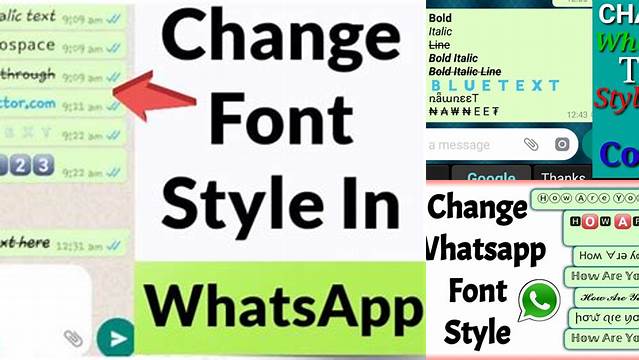
WhatsApp Fonts: Change Your Text Style
The Magic of Customizing WhatsApp Fonts
Hey guys, ever felt like your WhatsApp chats were a bit⊠well, boring? We all use WhatsApp daily, right? Itâs our go-to for keeping up with friends, family, and even work. But letâs be real, the standard font can get pretty monotonous. Thatâs where the amazing world of WhatsApp fonts comes in! Imagine spicing up your messages with bold declarations, italicized whispers, or even striking through those awkward moments. Itâs not just about looking cool, though thatâs a definite perk. Customizing your WhatsApp fonts is a super fun way to express yourself, add personality to your conversations, and make your texts stand out from the crowd. Think about it: you can use bold to emphasize something really important, italics to convey a sarcastic tone, or even strikethrough to show youâve changed your mind. These little tweaks can totally change how your message is perceived, making your chats more engaging and expressive. Plus, itâs a fantastic way to personalize your digital communication and let your unique style shine through. So, if youâre ready to ditch the default and inject some serious flair into your WhatsApp game, stick around, because weâre about to dive deep into everything you need to know about mastering those awesome WhatsApp fonts!
Understanding WhatsApp's Built-in Font Features
So, WhatsApp, bless its heart, does offer a few built-in ways to play with your text. Itâs not a full-blown font customization suite like youâd find on a desktop publishing program, but itâs pretty neat for what it is. Most of us know the basics, right? To make your text bold in WhatsApp, you simply wrap the word or phrase you want to emphasize with an asterisk (*). So, if you type This is important, itâll show up as This is important in the chat. Itâs super straightforward and instantly adds emphasis, making your key points pop. Then there are italics. Need to convey a subtle tone, a foreign word, or perhaps a bit of sarcasm? Just use the underscore (_). Typing This is interesting will transform into This is interesting. Itâs perfect for adding nuance to your messages. And letâs not forget the strikethrough option, which is great for showing youâve changed your mind or for a bit of playful editing. To achieve this, you use the tilde (~). So, This was a mistake becomes This was a mistake, visually crossing out the text. These basic formatting tools are incredibly powerful for adding layers of meaning and personality to your messages. Theyâre readily available, require no extra apps, and are universally understood by all WhatsApp users. Mastering these simple tricks is the first step to making your WhatsApp conversations more dynamic and visually appealing. Itâs all about using these little symbols to communicate more effectively and expressively. So, before you go hunting for fancy external tools, make sure youâre utilizing these native WhatsApp font features to their full potential. Theyâre the foundation for a more engaging chat experience, guys!
Exploring Third-Party Apps for WhatsApp Font Styles
Now, while WhatsAppâs built-in features are handy, sometimes you want more. You want those fancy scripts, those cool cursive styles, or maybe even something a bit gothic. Thatâs where third-party apps come into the picture, and trust me, they are a game-changer for exploring a wider range of WhatsApp fonts. These apps essentially work by generating your text in different fonts, which you can then copy and paste directly into your WhatsApp chats. Itâs like having a personal font studio right on your phone! Think about the possibilities: you can send stylish birthday wishes in a flowing script font, add a touch of elegance with a serif font, or even use a retro font for a fun throwback. These apps usually have a massive library of fonts, catering to every mood and occasion. Some popular options you might find include stylish text generators, font keyboards, and even specialized apps focused solely on creating cool text for social media and messaging. When you use these, youâll typically type your message into the app, select your desired font from a long list, and then hit a copy button. Then, you just head over to WhatsApp, paste it into the chat, and voilĂ ! Your message looks completely different and way more interesting. Itâs crucial, however, to be a bit savvy when choosing these apps. Look for ones with good reviews, clear privacy policies, and that donât bombard you with excessive ads or require unnecessary permissions. Safety first, always! But yeah, for unlocking a universe of creative text styles beyond the basic bold and italics, these third-party apps are your best bet for seriously upgrading your WhatsApp font game. Get ready to impress your friends with messages that look like theyâre straight out of a designerâs sketchbook!
How to Use Fancy Text Generators for WhatsApp
Letâs talk about the nitty-gritty of using those cool fancy text generator apps for your WhatsApp fonts, shall we? Itâs honestly super simple, guys, and the results can be surprisingly impactful. The basic process is pretty much universal across most of these tools. First off, youâll need to download and install one of these apps from your deviceâs app store. There are tons of them out there, so a quick search for âfancy text generatorâ or âWhatsApp font generatorâ should give you plenty of options. Once youâve got one installed, open it up. Youâll usually see a prominent text box where you can type your message. So, go ahead and type exactly what you want to send on WhatsApp into this box. As you type, the app will dynamically generate your text in a variety of different font styles below or beside your input. Youâll see everything from elegant cursive fonts and bold block letters to quirky, decorative styles. Scroll through the options and find the one that best fits the vibe of your message. Found the perfect font? Awesome! Now, most apps have a simple âcopyâ button right next to each generated text style. Tap that button, and the stylized text is copied to your phoneâs clipboard. The next step is the most exciting: open your WhatsApp chat. Navigate to the message input field, and simply paste the copied text. You can usually do this by long-pressing in the input field and selecting âpasteâ from the menu that pops up. And there you have it! Your message, now transformed into a fancy font, is ready to be sent. Itâs a fantastic way to make announcements, send special greetings, or just add a touch of personality to your everyday chats. Remember to choose fonts that are readable, though â sometimes the super fancy ones can be a bit of a strain on the eyes, especially on a small screen. But generally, these generators are a super accessible and fun way to elevate your WhatsApp communication. Go on, give it a whirl and see how your friends react!
Creating Stylish Text with Keyboard Font Apps
Beyond dedicated generators, another super popular way to get awesome WhatsApp fonts is by using custom keyboard apps. These guys essentially replace your default phone keyboard with one that has built-in font styling capabilities. Itâs a really seamless way to integrate fancy text into your typing workflow, making it feel almost like a native feature. Once youâve downloaded and installed a keyboard app that offers font styles (again, a search in your app store will reveal many), youâll need to enable it in your phoneâs settings. This usually involves going to Settings > Keyboard (or similar), then adding the new keyboard and potentially allowing full access if prompted (do this only for trusted apps, of course!). After enabling, you can switch to your new keyboard anytime youâre typing, usually by tapping a globe icon or a specific key on the keyboard itself. Many of these keyboards will have a dedicated section or a toggle button where you can select different font styles before you even send your message. So, as youâre typing your message on the keyboard, you can simultaneously be applying a cool font. Some keyboards even offer a âfont barâ that appears above the keys, allowing you to cycle through styles easily. This is super convenient because you donât need to switch between apps; itâs all happening right there as you type. Imagine typing a whole paragraph in a stylish font without ever leaving the chat window! It makes the process much faster and more fluid than copy-pasting. Just like with generators, explore the different font options provided by the keyboard app. Youâll find everything from elegant scripts to bold sans-serifs. Make sure the keyboard you choose is reliable and doesnât slow down your typing. Read reviews and check permissions carefully. But overall, keyboard font apps are a fantastic tool for anyone who wants to consistently use stylish WhatsApp fonts without the extra hassle of copy-pasting. Itâs all about making your typing experience cooler and more expressive, guys!
WhatsApp Font Changer: What You Need to Know
Okay, so youâve probably heard the term âWhatsApp Font Changer,â and it sounds like a magical button that instantly transforms all your WhatsApp text, right? Well, not quite. While there isnât a single, official âWhatsApp Font Changerâ app that modifies the appâs core font for all your chats universally, the term usually refers to the methods weâve been discussing: using WhatsAppâs built-in formatting, third-party text generators, or custom keyboard apps. Itâs important to understand this distinction because sometimes people search for a âfont changerâ expecting a system-wide modification within WhatsApp itself, which isnât how it works. The built-in bold, italics, and strikethrough are applied per message. The text generators and keyboard apps create new text strings in different fonts that you then paste or type into WhatsApp. These generated fonts arenât technically changing WhatsAppâs default font; theyâre essentially sending a message that displays in a different font style. This means the recipient sees your specially formatted text, but their own WhatsApp interface remains unchanged. When choosing tools that aim to âchangeâ your WhatsApp font, always prioritize security and reliability. Stick to reputable apps from official stores, and be wary of any app that asks for excessive permissions or promises unrealistic features. The goal is to enhance your messaging experience, not to compromise your deviceâs security. So, while a true, universal âWhatsApp Font Changerâ might be a myth, the methods available for styling your text are plentiful and effective. They give you the power to control the aesthetic of your individual messages and make your conversations far more visually interesting and personalized. Think of it as choosing the perfect outfit for each message you send!
The Evolving Landscape of WhatsApp Text Formatting
Itâs pretty cool to think about how much text formatting has evolved, especially within apps like WhatsApp. When messaging apps first started, it was all plain text, period. Then came the slow introduction of basic formatting like bold and italics, which felt revolutionary at the time! Now, weâre living in an era where we can express so much more through the visual style of our text. The evolution of WhatsApp fonts reflects this broader trend in digital communication. Weâve moved from just conveying information to conveying emotion, tone, and personality through how we type. The development of sophisticated Unicode characters allows apps like WhatsApp to render text in a vast array of styles, far beyond the standard alphabet. These Unicode fonts work by using special characters that look like letters but are technically different codes, which is why they display correctly across different platforms and devices â pretty neat, huh? This technological advancement is what makes all those fancy text generators and keyboard apps possible. They leverage this Unicode magic to offer us hundreds of stylistic choices. Looking ahead, we might see even more integrated formatting options within messaging apps themselves. Perhaps more font choices, different text colors directly within the app, or even animated text styles could become standard. The demand for personalization in digital communication is only growing, and WhatsApp, being a leader in the space, will likely continue to innovate in how we can style our messages. Itâs an exciting time to be exploring WhatsApp fonts, as weâre really at the forefront of how we express ourselves online. The way we format our text is becoming as important as the words themselves, adding layers of meaning and visual appeal that plain text just canât match. Keep an eye on this space, guys, because the future of text formatting is looking seriously stylish!
Tips for Using WhatsApp Fonts Effectively
Alright guys, weâve talked about how to use different WhatsApp fonts, but letâs chat about how to use them well. Because letâs be honest, a message riddled with every fancy font imaginable can sometimes be more distracting than delightful. The key here is moderation and purpose. First off, always consider your audience and the context of the conversation. Are you sending a casual message to a close friend, or a more formal update to a group? Using a super ornate script font for a serious work-related announcement probably isnât the best idea. Stick to the basic bold and italics for emphasis in more formal settings. For casual chats, feel free to experiment, but still, keep readability in mind. Some of the really stylized WhatsApp fonts can be tricky to read on smaller screens or for people with visual impairments. Try to choose fonts that are clear and legible, even if theyâre a bit different. Think about what you want to achieve with the font change. Are you trying to be funny? Sarcastic? Empathetic? Choose a font that genuinely enhances that message. For example, a slightly distressed or broken font could be used humorously to indicate something went wrong, while a smooth, flowing script might convey warmth. Donât overdo it! Sprinkling in a fancy font here and there for a special occasion or a key point is much more effective than typing an entire message in an unusual style. Consistency can also be a factor; if youâre using a specific font for a particular type of message, your friends might start to recognize it. Finally, always double-check how your message looks before sending. A quick glance can catch awkward spacing or hard-to-read words. By using WhatsApp fonts thoughtfully and strategically, you can make your messages more engaging, expressive, and fun, without sacrificing clarity or looking like youâre trying too hard. Itâs all about finding that sweet spot, you know?
The Impact of Custom Fonts on Chat Readability
Letâs get real for a second, guys: while experimenting with WhatsApp fonts is super fun and adds a personal touch, we absolutely have to talk about readability. Itâs easy to get carried away with the dozens of cool, quirky, or elegant fonts available through third-party apps, but if your message ends up being a struggle for the recipient to read, then whatâs the point? Readability is paramount in communication, and that includes digital chat. WhatsAppâs default font is designed for maximum legibility across various devices and lighting conditions. Itâs clean, clear, and universally understood. When you start using custom fonts, especially those generated via Unicode characters, youâre introducing variations that can impact how easily your message is processed. Some scripts, for instance, have very elaborate flourishes or unusual letter connections that might mimic handwriting but can slow down comprehension. Others might have letterforms that are too similar to each other, leading to confusion (think of an 'a' looking like an 'o', or an 'i' without a dot). Very thin or very bold fonts can also present challenges, as can fonts that are overly condensed or spread out. The goal is to enhance your message, not to make your friends squint at their screens trying to decipher what youâve written. So, when youâre selecting a custom font for WhatsApp, always do a quick mental check: Would my grandma be able to read this easily? Is this font clear enough for a quick glance? Is it appropriate for the message Iâm sending? Sometimes, the best âfancyâ font is actually one thatâs just a subtle variation of the standard, perhaps a slightly different weight or a cleaner sans-serif style. Prioritizing clarity ensures that your message lands effectively and that your creative font choice serves its purpose â to communicate, not to confuse. Remember, effective communication is always the primary goal, and a visually appealing message thatâs also easy to read is the ultimate win.
Integrating WhatsApp Fonts with Emojis and Stickers
Hey guys, letâs talk about taking your WhatsApp fonts game to the next level by combining them with emojis and stickers! Itâs all about creating a richer, more dynamic visual experience in your chats. Think of your stylized text as the main course, and emojis and stickers as the delicious side dishes and garnishes that complete the meal. When you use a bold font to emphasize a key point, adding a relevant emoji right after it, like a đ (pushpin) or a âŒïž (double exclamation mark), can really drive the message home. Similarly, if youâre using a fun, script font for a birthday wish, pairing it with a đ (party popper), đ (birthday cake), or đ„ł (partying face) emoji instantly amplifies the celebratory mood. Stickers offer an even broader canvas for visual expression. You can use a stylized font to introduce a topic, and then send a related sticker pack that elaborates on the emotion or idea. For example, you could type in a cool font,